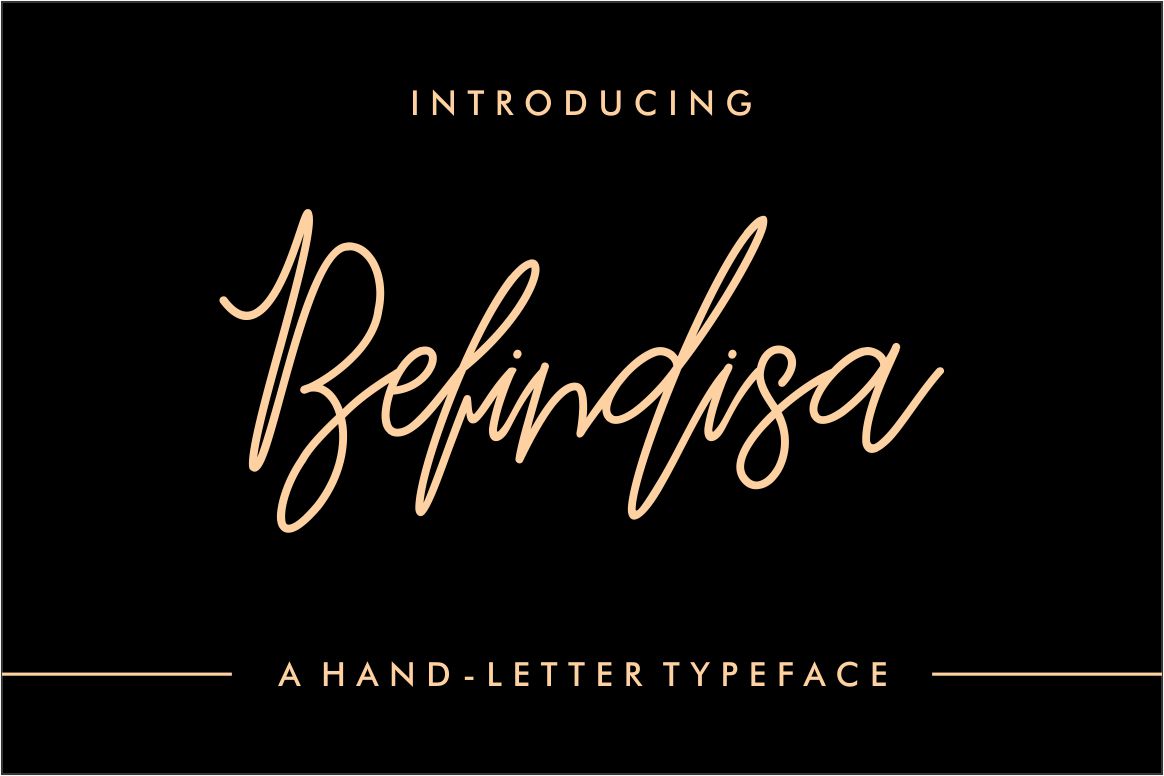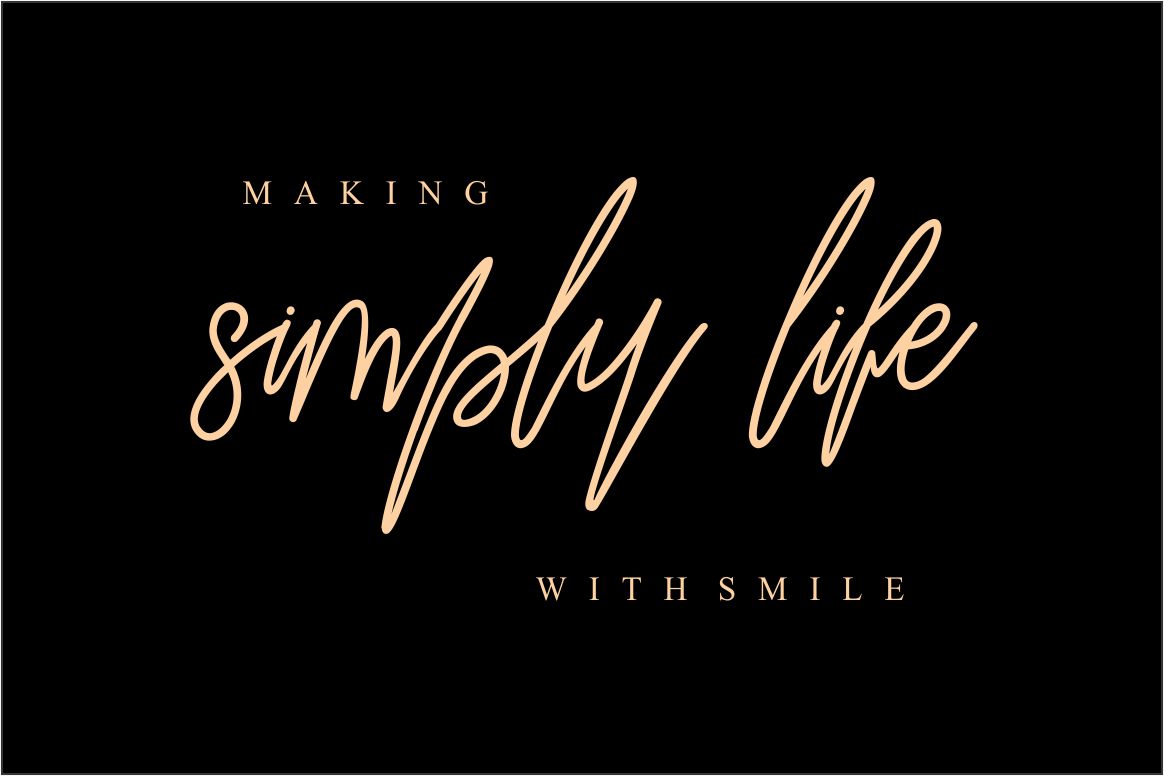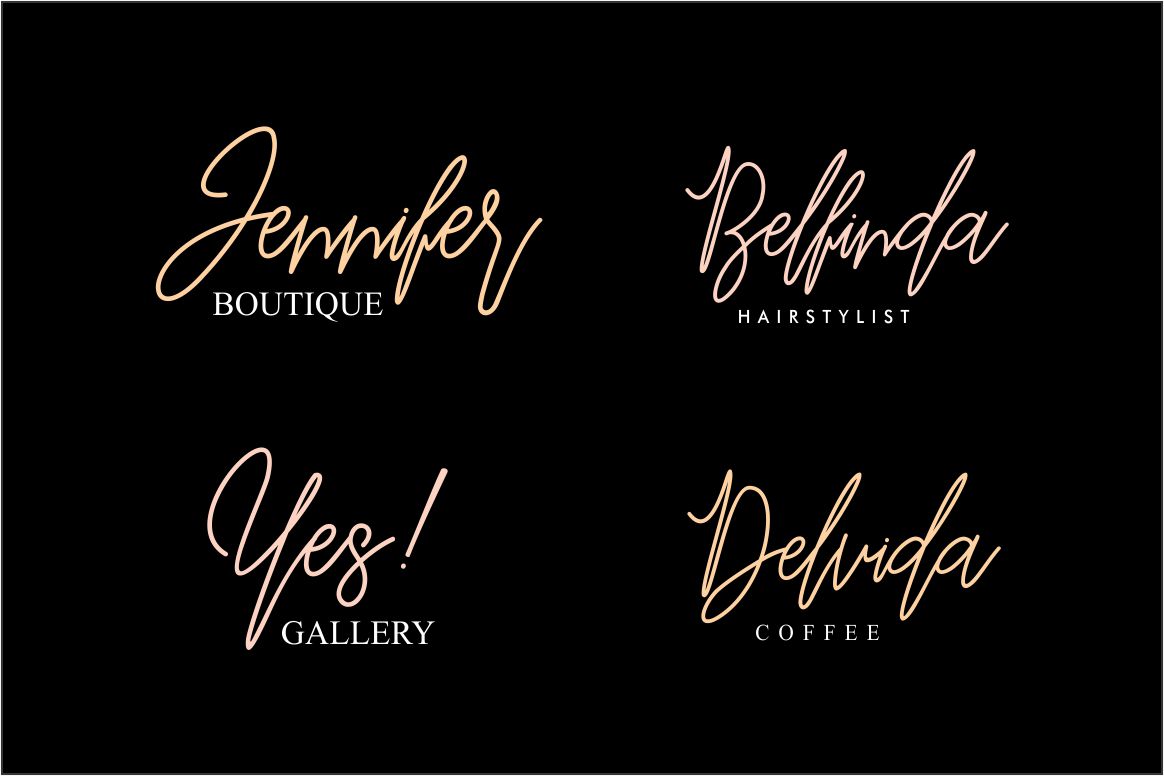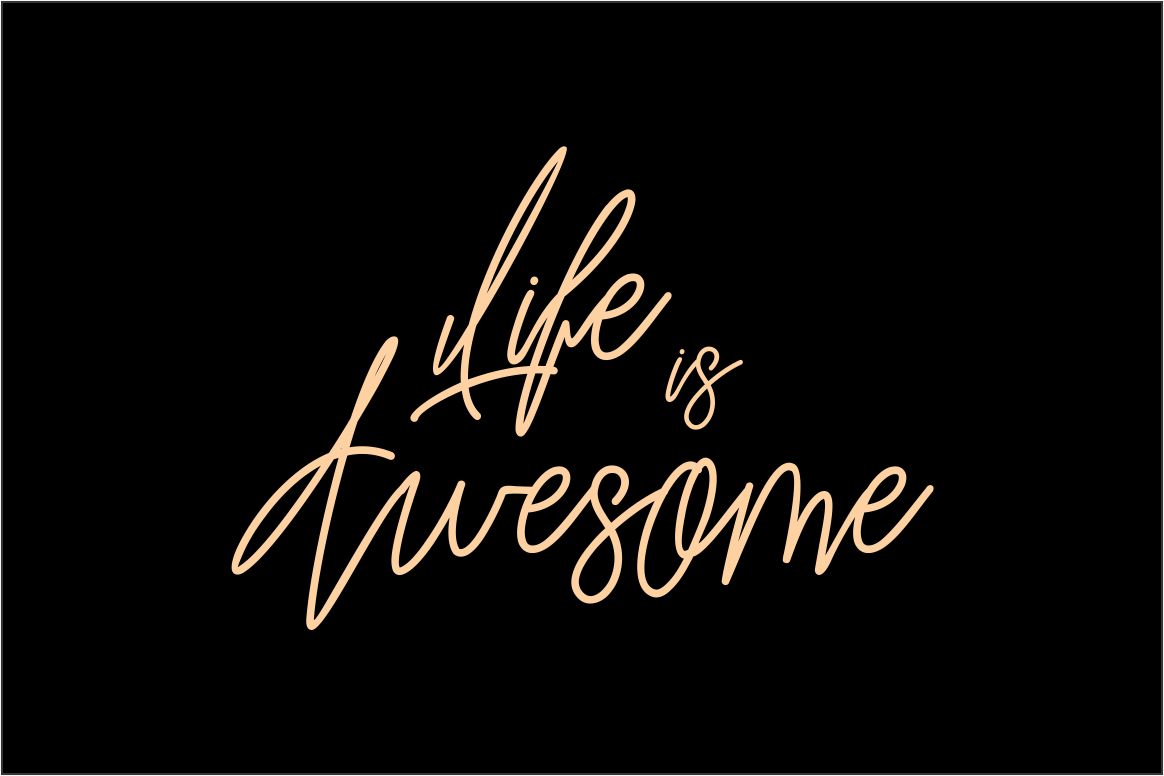
About Befindisa Font
The Befindisa font is a hand-lettered script type with an elegant touch. You can use it for wedding invitations, greeting cards, fashion, clothing, and another branding. Add this lovely freebie to your creations and take your designs to the next level!